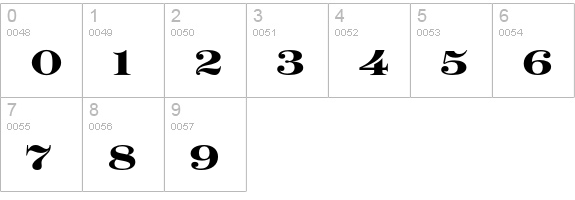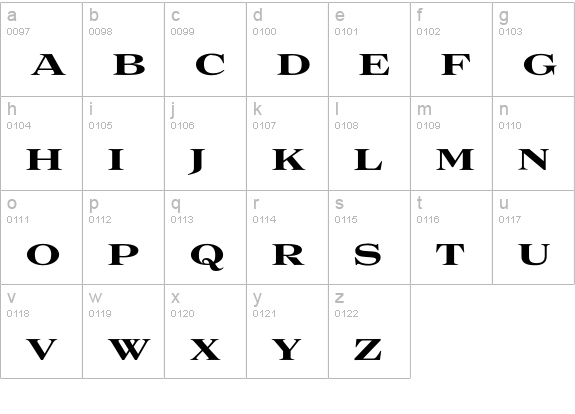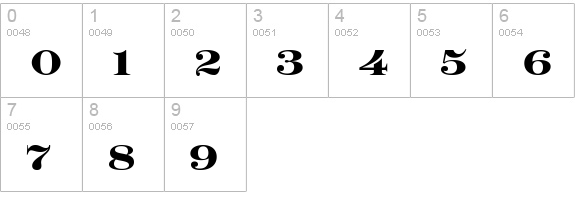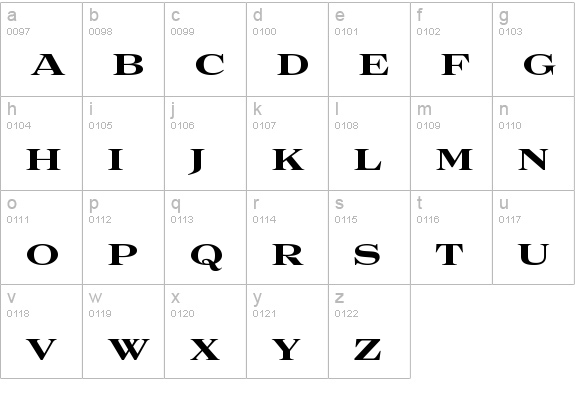
Indulge in the opulent elegance of Luxury Diamond font, a sophisticated typeface exuding luxury and extravagance. Its intricate diamond-inspired design captures the essence of refined beauty, making it the perfect choice for high-end branding, luxurious invitations, and exclusive designs. This exquisite font is not only visually stunning but also versatile, offering a range of stylistic options to suit various design needs. From its sleek lines to its intricate details, Luxury Diamond font exudes a sense of sophistication and refinement that will elevate any project to new heights of elegance. And the best part? Luxury Diamond font is available for free download at FontsMarket.com, allowing you to add a touch of luxury to your designs without any cost. So why wait? Elevate your projects with the timeless beauty of Luxury Diamond font today.